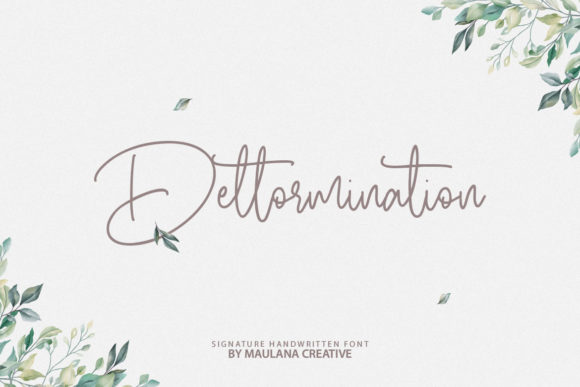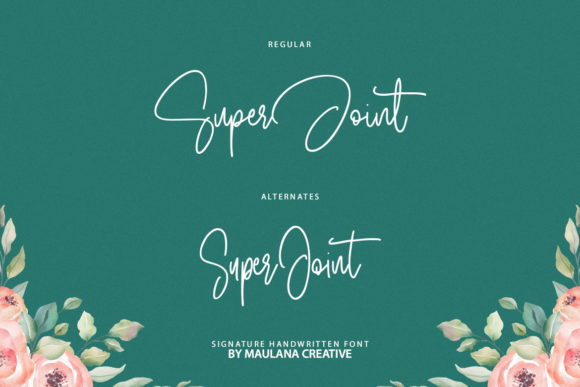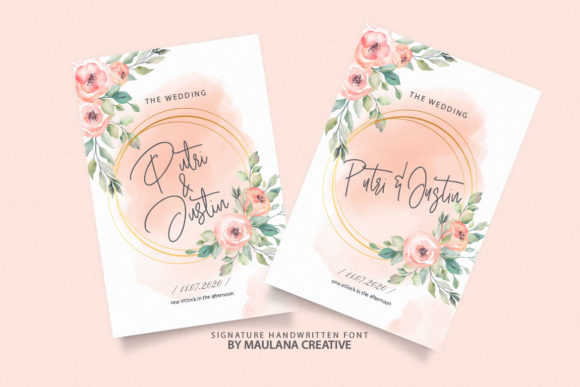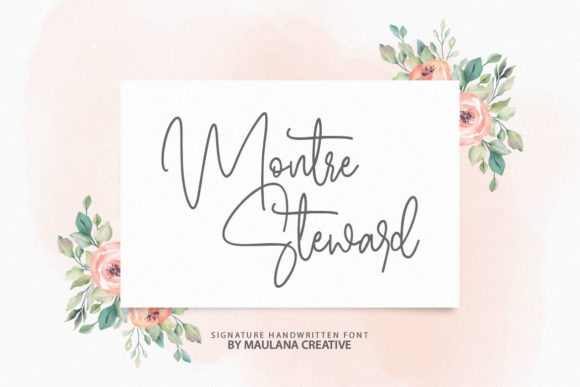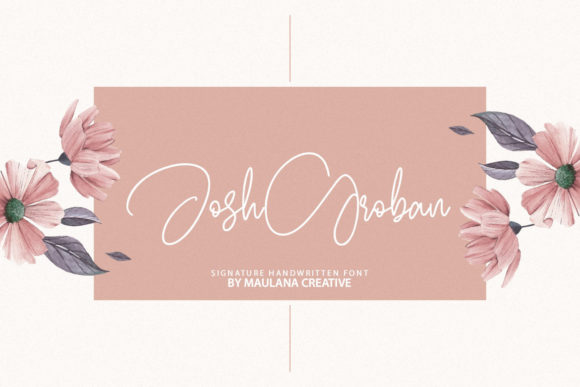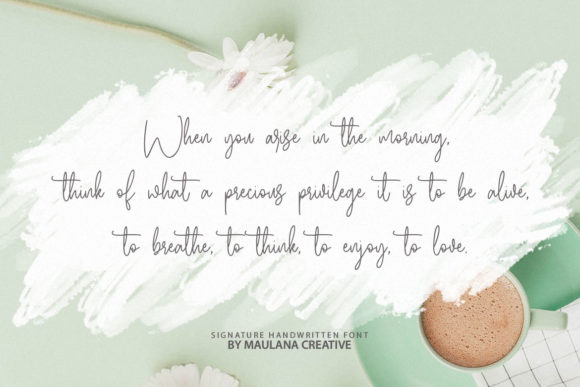
Qurtsign Font – Free Download
Introduction to Qurtsign Font
Qurtsign is a sweet, soft hand-lettered script.
The playful rounded characters make it the perfect font for creating stunning calligraphy art Qurtsign comes packed with elegant glyphs, that will allow you to add a decorative touch within seconds.